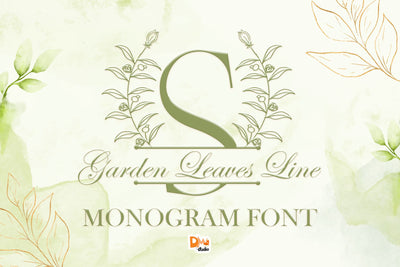
Garden Leaves Line Monogram
Garden Leaves Line Monogram – Elegant Botanical Line Art Alphabet
Garden Leaves Line Monogram is a beautifully minimal set of monogram initials featuring graceful line-art leaves entwined around each letter. This refined, nature-inspired design brings sophistication and calm to your creative projects — perfect for weddings, branding, home décor, invitations, logos, and personalized gifts. Its clean botanical aesthetic is ideal for both print and digital formats, offering timeless elegance with a modern organic twist.
Minimal Line Art Leaves: Each monogram combines uppercase lettering with delicate linear foliage detailing.
Monogram Initial Focus: Designed as single uppercase letters for standout decorative initials.
Stylish Simplicity: Ideal for minimalist lovers seeking a nature-forward decorative font.